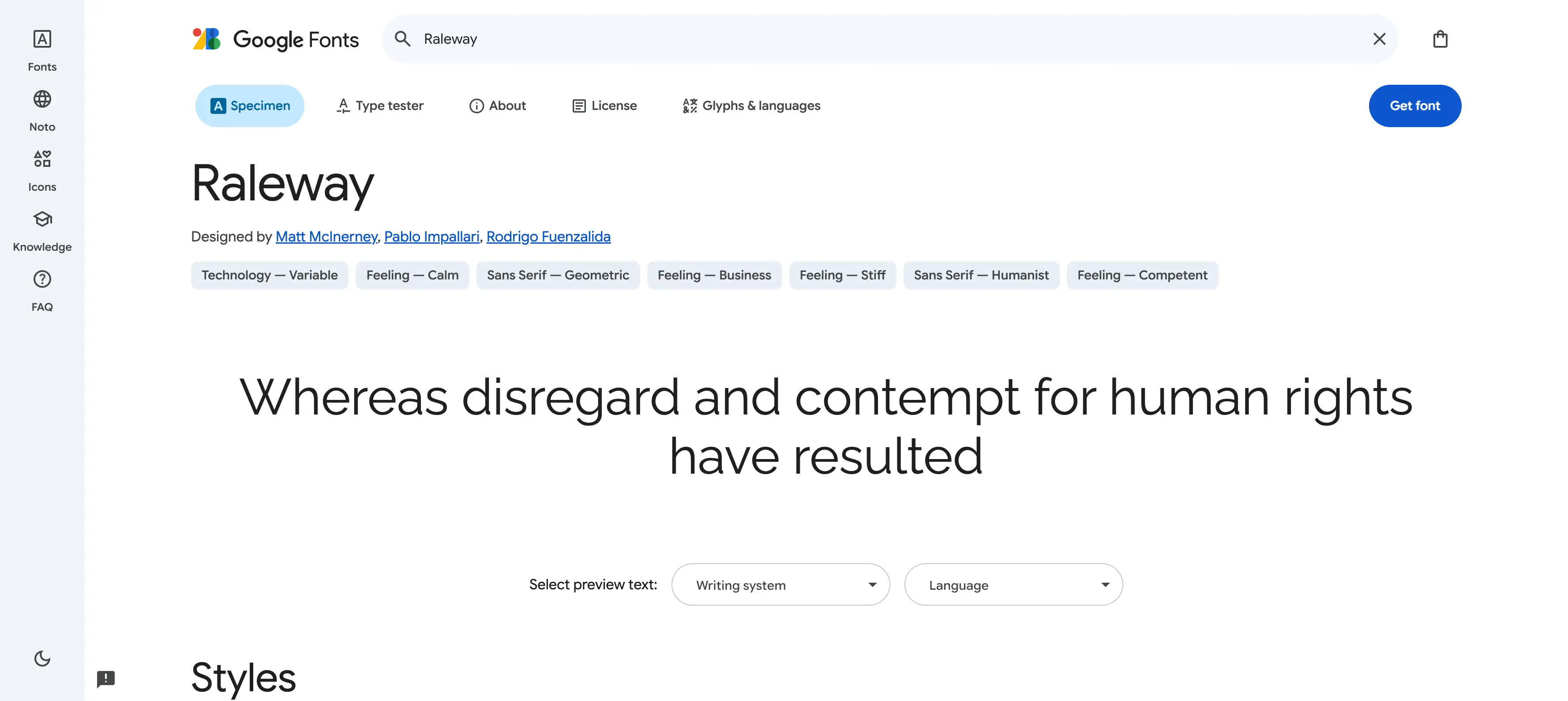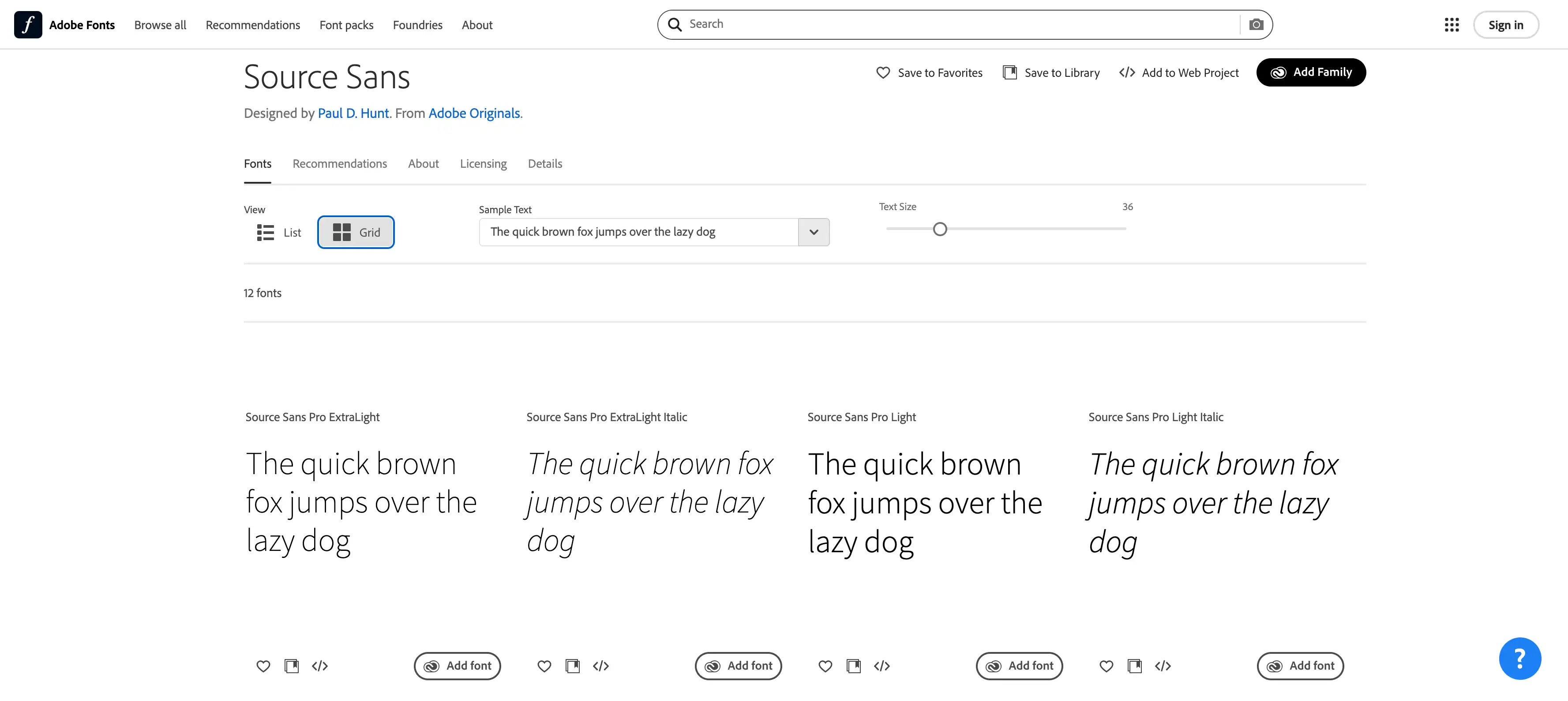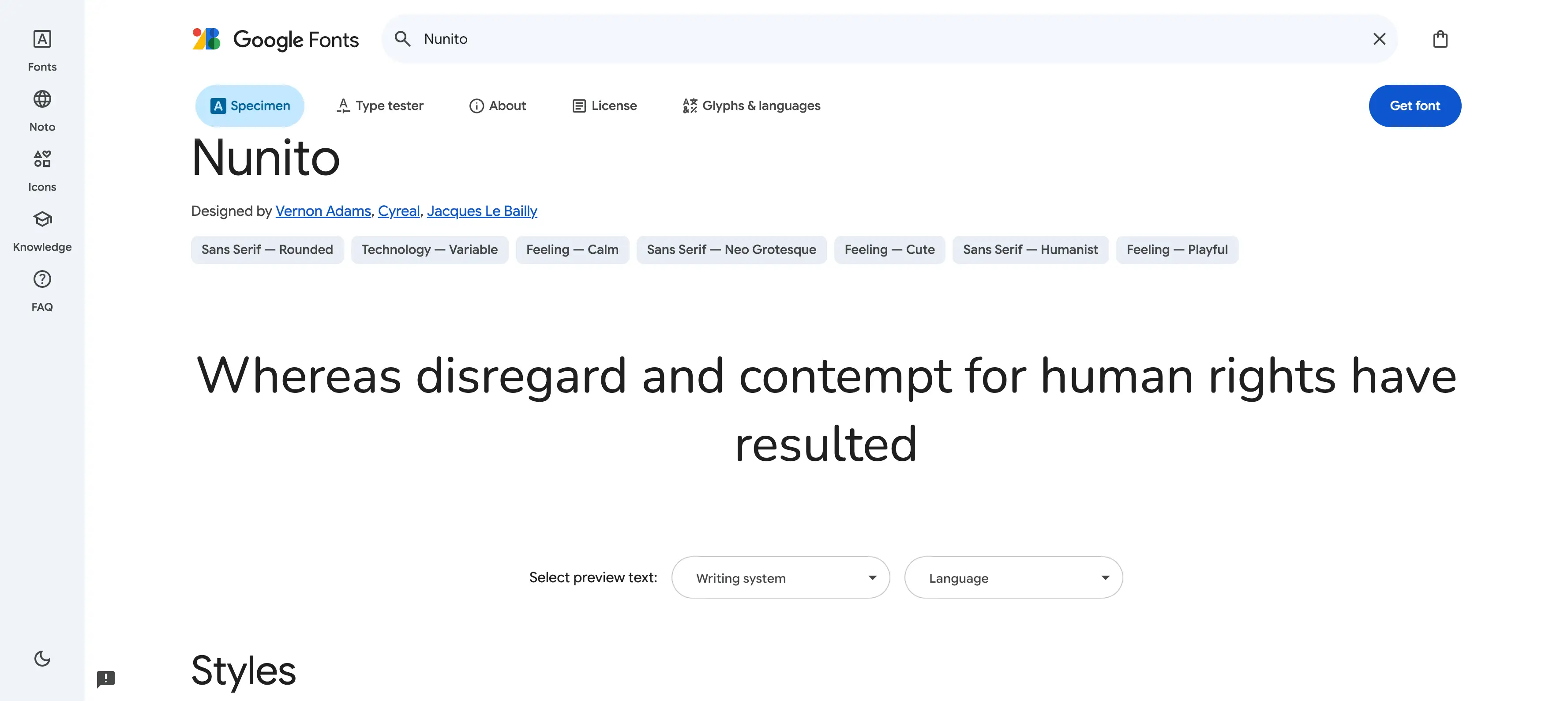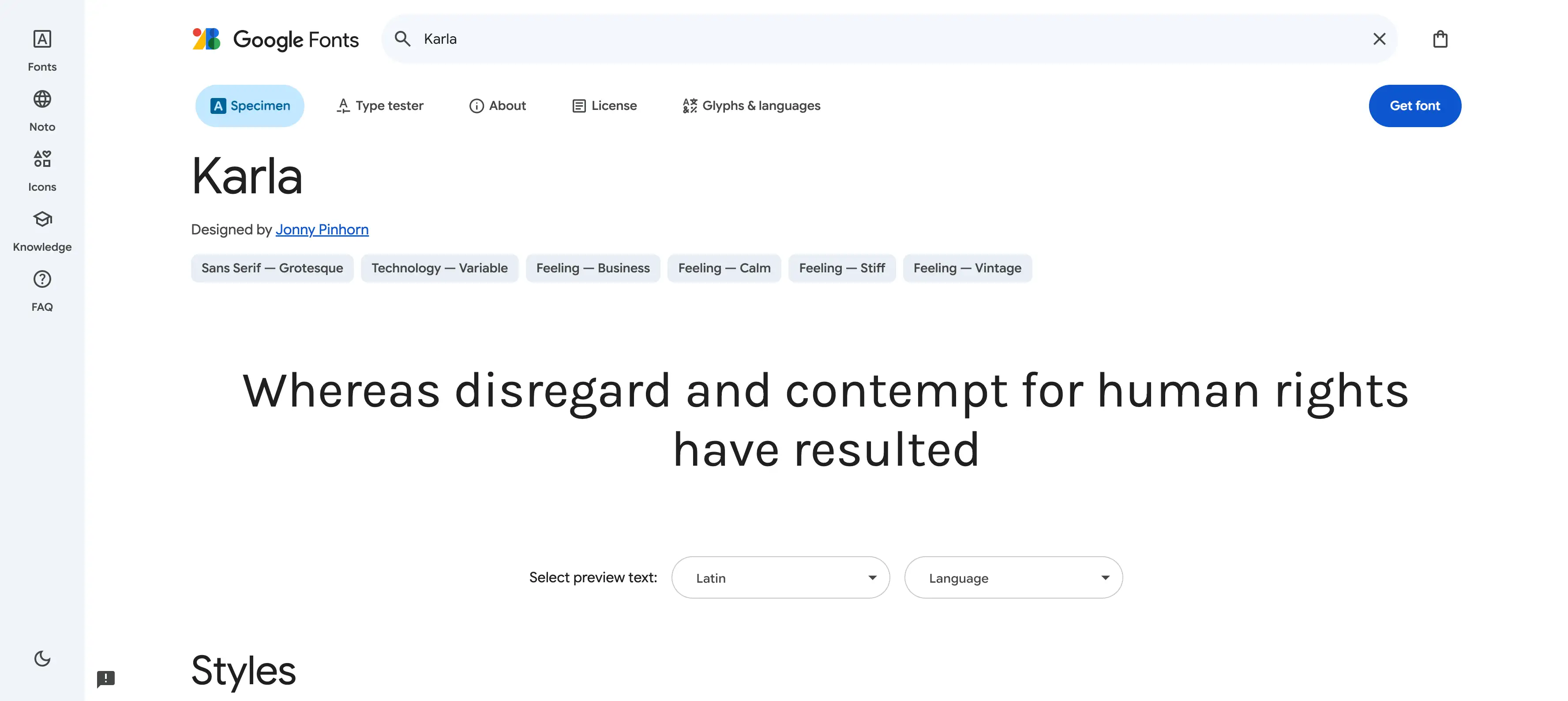
Have you ever landed on a blog and instantly felt calm and focused? The secret isn't just the great content; it's often the clean, simple design. A huge part of that minimalist magic comes down to choosing the right font. It’s a small detail that makes a massive difference. The perfect font can make your writing a joy to read, create a professional vibe, and keep visitors on your page longer.
Font 1.Poppins: A Versatile and Friendly Choice
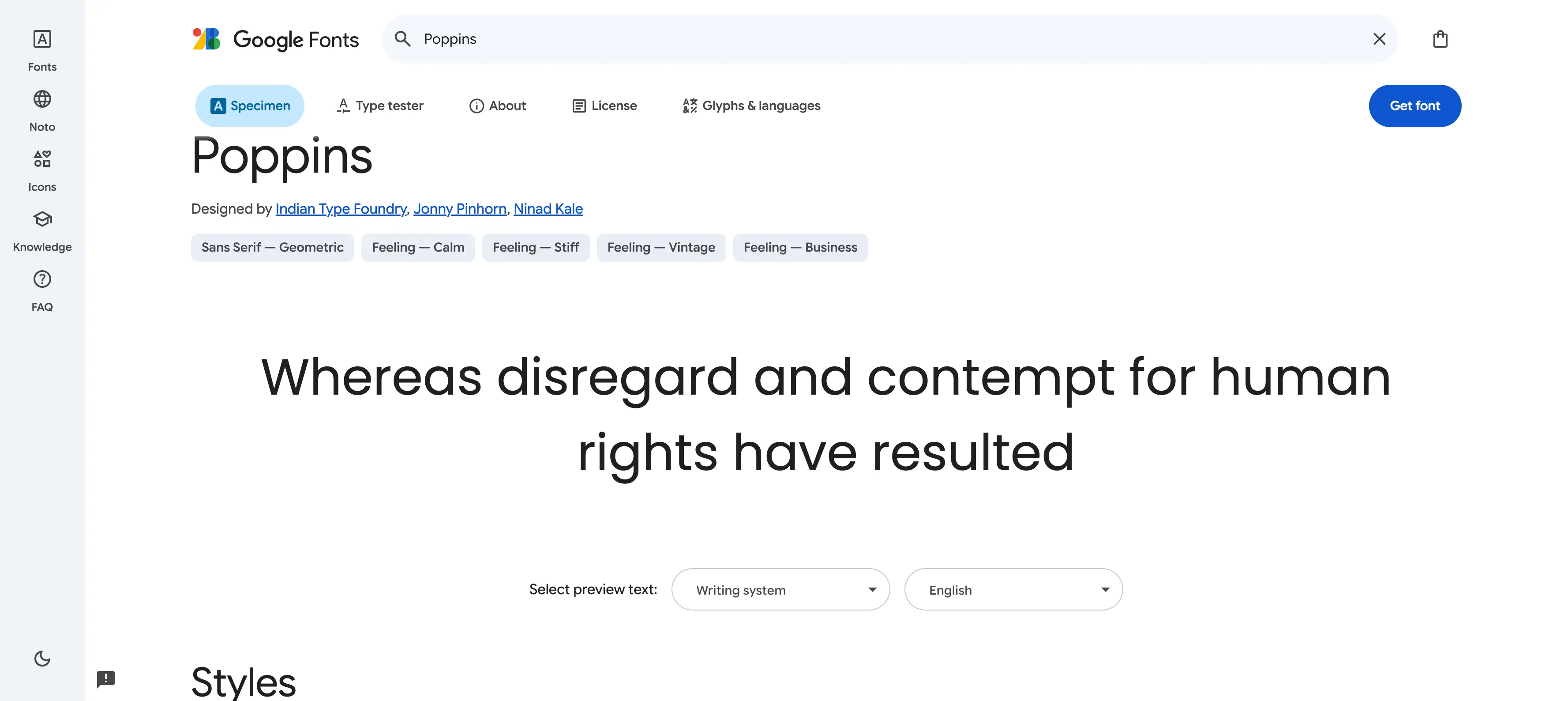
Poppins is one of the most popular aesthetic fonts available on Google Fonts, and for good reason. It's a geometric sans-serif typeface that is both clean and incredibly friendly. The letters are nearly monolinear, which means the strokes have a consistent thickness, giving the font a very modern and polished look.
Poppins comes in a wide range of weights, from thin to black. This makes it extremely versatile for any part of your minimalist blog. You can use the lighter weights for your main body text and the bolder weights for eye-catching headlines. Best of all, this font is great for readability on screens of all sizes. It is a perfect choice for a blog that wants to feel approachable and modern. Building that professional look is a foundational step in any guide on how to monetize your blog. You can find this font for a minimalist font free download on Google Fonts.
Font 2.Montserrat: A Modern Classic for Headers
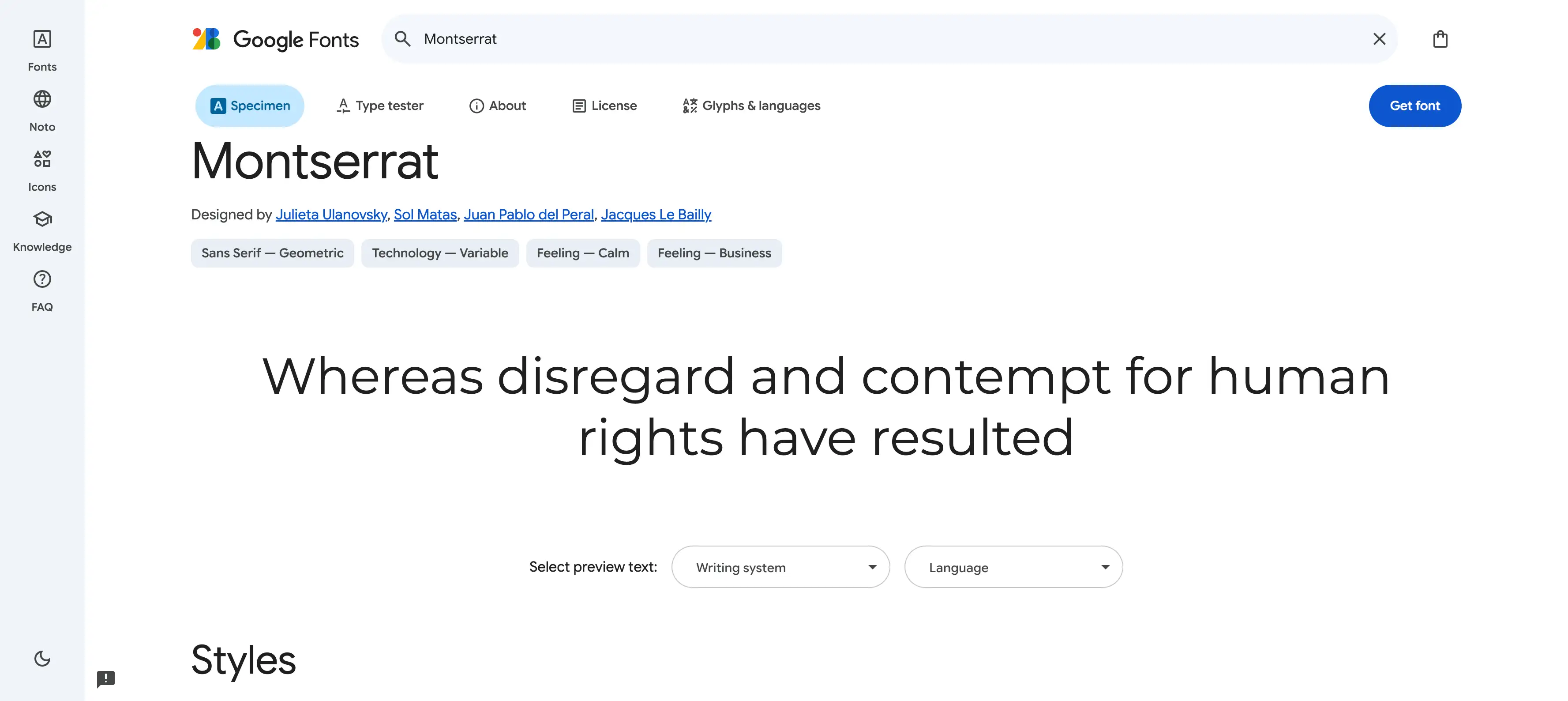
Montserrat is another fantastic choice for a minimalist blog. It was inspired by the old posters and signs in the Montserrat neighborhood of Buenos Aires. This font has a very urban and modern feel. It is a geometric sans-serif with a strong presence.
Montserrat is perfect for headers and titles on your blog. The bold and black weights are especially good for making a statement. It pairs well with a simpler font for the body text. This will create a nice contrast in your blog designs. The font is highly readable and looks great in all caps for a stylish look. It is one of the best minimalist fonts you can find for free.
Font 3.Lato: A Warm and Readable Font
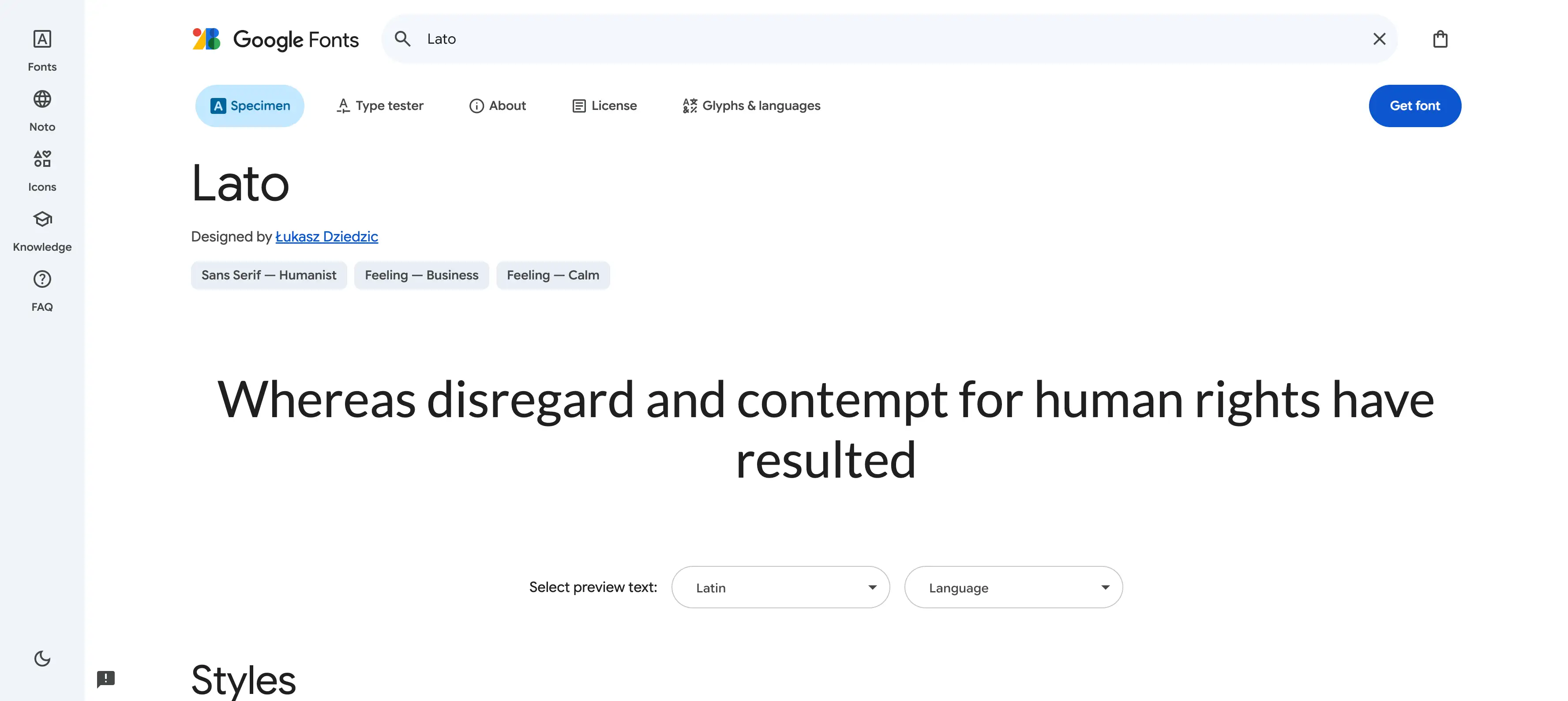
Lato is a sans-serif typeface that was designed to feel warm and friendly. The designer, Łukasz Dziedzic, wanted to create a font that was transparent in long texts. This means it is very easy to read for long periods. The semi-rounded details of the letters give it a feeling of warmth.
Lato is a very versatile font with a wide range of weights and styles. It works well for both headlines and body text. This makes it a great all-in-one solution for your minimalist blog. It is a very popular font for a reason. It combines a clean look with a friendly personality. If you are looking for great blog fonts, Lato is a solid choice.
Font 4.Open Sans: The Ultimate in Readability
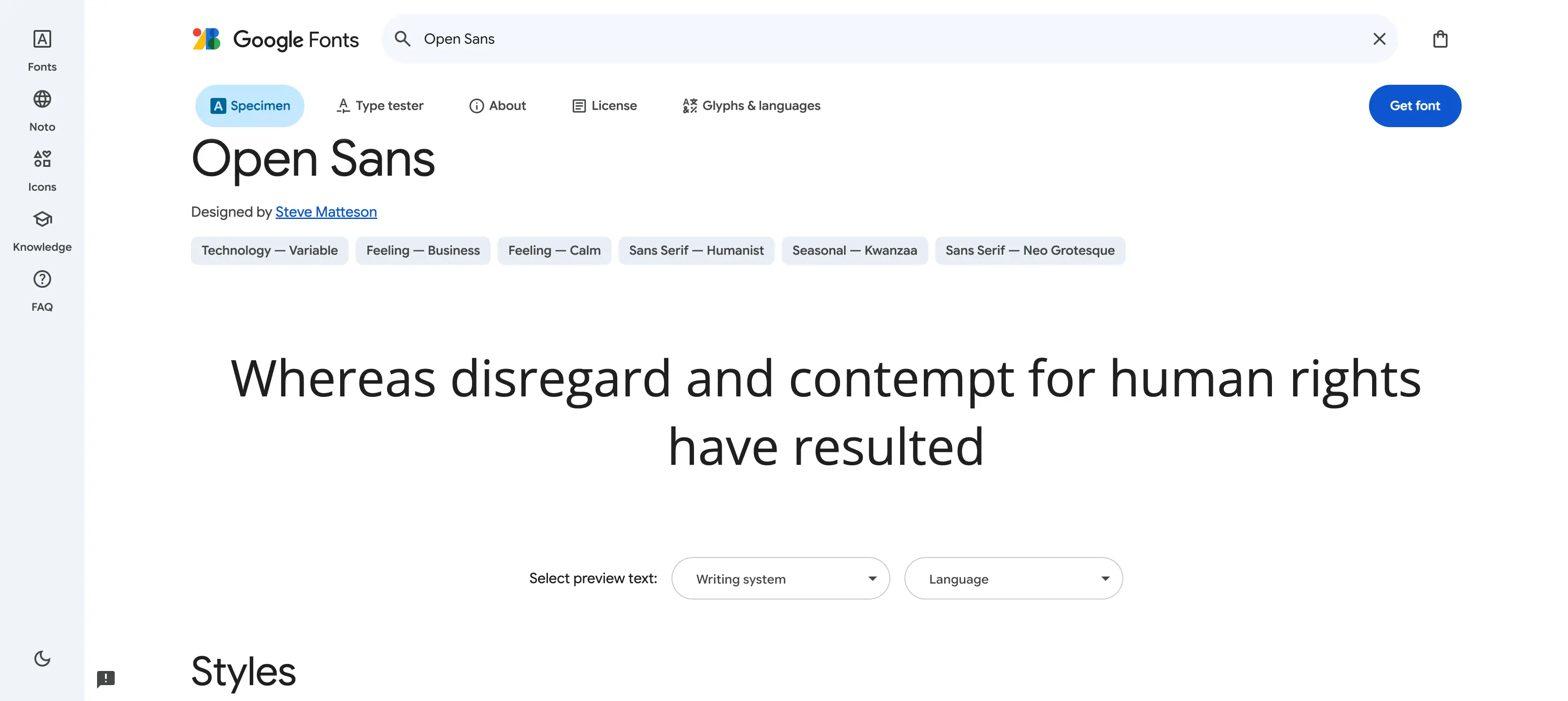
Open Sans is a humanist sans-serif typeface that is known for its excellent readability. It was designed by Steve Matteson and is optimized for both print and web. The open forms of the letters make it very easy to read, even at small sizes. This is very important for a minimalist blog where clarity is key. In fact, readability is a core component of many effective blog SEO strategies.
Open Sans has a friendly and neutral appearance. This means it won't distract from your content. It comes in a wide range of weights and styles, including italics. This gives you a lot of flexibility in your blog designs. It's a true workhorse font that you can rely on for any part of your blog. Many designers consider it one of the top aesthetic fonts for its simplicity.
Font 5.Roboto: A Modern and Technical Font
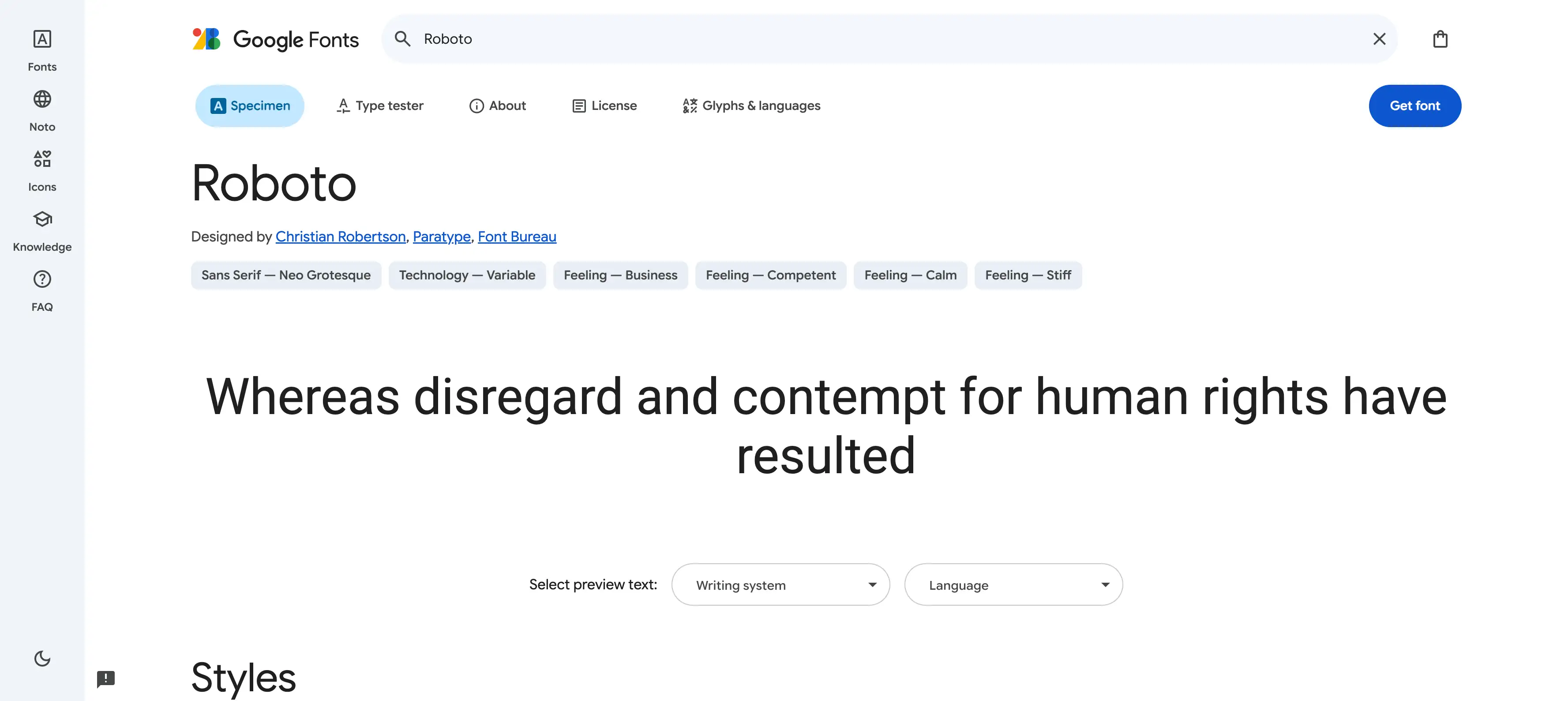
Roboto is a neo-grotesque sans-serif typeface that was developed by Google. It is the system font for the Android operating system. Roboto has a very modern and technical feel. It has a geometric skeleton but also features friendly and open curves. This dual nature makes it very versatile. It is highly readable and works well for both headlines and body text.
Roboto is a great choice for a minimalist blog that wants a clean and futuristic look. It comes in a wide variety of weights and styles. This allows you to create a clear and consistent visual hierarchy in your design. You can find this for a minimalist font free download on Google Fonts.